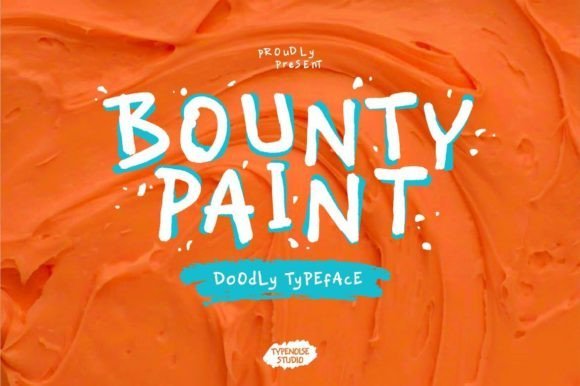
Unlocking the Flavors of Creativity with Bounty Paint Font
Have you ever been strolling through a vibrant neighborhood, surrounded by colorful street art and quirky cafes? The moment you step into a charming eatery, you’re hit with an explosion of flavors and a dash of personality. This is the magic that the Bounty Paint Font embodies – a unique blend of youthful energy and joy that’s perfect for branding food places and restaurants.
As a designer, you know the importance of a font that speaks to your brand’s personality. The Bounty Paint Font is more than just a typeface – it’s a key to unlocking the perfect vibe for your logo design, business branding, and marketing materials. With its OTF and TTF formats, you can easily incorporate this font into your projects and bring your ideas to life.
- Font Family: Bounty Paint is a unique display font, designed to evoke a sense of playfulness and whimsy.
- Character Set: Includes a comprehensive set of characters, including uppercase and lowercase letters, numbers, and punctuation marks.
- Unique Characteristics: Features a distinctive, hand-painted aesthetic with bold lines, vibrant colors, and textured effects, making it perfect for adding a touch of personality to designs.
Bounty Paint Font Review
When I first laid eyes on Bounty Paint Font, I was struck by its vibrant and playful aesthetic. ✨ The font’s bold, rounded edges and bright color palette immediately caught my attention, and I could envision it working well in a variety of contexts, from children’s books to advertising campaigns. ✨
One of the things that really stands out about Bounty Paint Font is its versatility. ✨ It comes in a range of weights, from light to bold, which makes it easy to use in a variety of settings. Additionally, the font includes a range of swashes and alternates, which can add an extra layer of interest and personality to your design.
However, there are a few limitations to consider. ⚠️ For one, the font may be a bit too playful for some audiences. If you’re looking to create a more serious or professional design, you may find that Bounty Paint Font isn’t the best fit. ⚠️ Additionally, the font’s bold lines and bright colors may be a bit overwhelming in large quantities, so be sure to use it judiciously.
- ✨ Bold, playful aesthetic that’s perfect for children’s books, advertising campaigns, and other fun projects
- ✨ Versatile, with a range of weights and swashes to choose from
- ⚠️ May be too playful for serious or professional designs
- ⚠️ Bold lines and bright colors may be overwhelming in large quantities
Overall, I think Bounty Paint Font is a fun and versatile addition to any designer’s toolkit. While it may have some limitations, it’s definitely worth considering for projects that require a playful, attention-grabbing aesthetic.
The Bounty Paint Font is a versatile font suitable for various designs, including:
- Travel and adventure themes
- Whimsical and playful designs